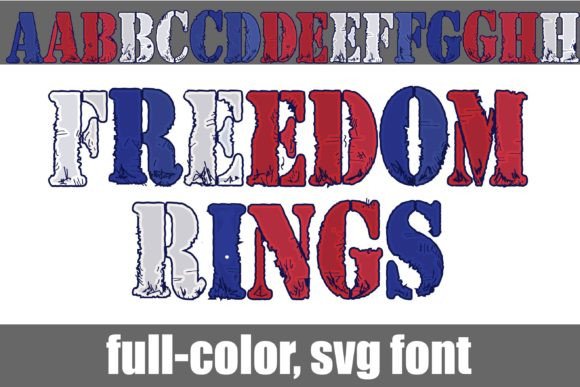
Freedom Rings Font: A Patriotic Grungy Stencil Style Font
Are you looking for a font that can add a touch of personality to your designs? Look no further than the Freedom Rings Font, a full-color font featuring a grungy stencil style in a patriotic color palette. This font is perfect for titles, displays, posters, and more, and is compatible with Silhouette Studio and other programs that support OpenType full-color (SVG) fonts.
What is Freedom Rings Font?
Freedom Rings Font is a unique and eye-catching font that features a grungy stencil style in a patriotic color palette. The font includes an alt case with additional colors that can be accessed through your system or Silhouette’s glyph map. This font is perfect for creating bold and colorful designs that stand out.
One of the best things about Freedom Rings Font is its versatility. It can be used for a variety of projects, from logos and branding to web design and print. The font is scalable, so you can use it for any size project, from small icons to large billboards.
Key Features of Freedom Rings Font
- Grungy Stencil Style: Freedom Rings Font features a unique grungy stencil style that adds a touch of edginess to your designs.
- Patriotic Color Palette: The font features a patriotic color palette that includes red, white, and blue, making it perfect for Independence Day or other patriotic-themed projects.
- Alt Case: The font includes an alt case with additional colors that can be accessed through your system or Silhouette’s glyph map.
Benefits of Using Full-Color SVG Fonts
Full-color SVG fonts, like Freedom Rings Font, offer a range of benefits, including:
- Versatility: Full-color SVG fonts can be used for a variety of projects, from logos and branding to web design and print.
- Scalability: SVG fonts are vector-based, so they can be scaled to any size without losing quality.
- High Quality: Full-color SVG fonts are high-quality and will not lose their resolution when scaled.
Uses for Freedom Rings Font
Freedom Rings Font is perfect for a variety of projects, including:
- Logos and Branding: Use Freedom Rings Font to create bold and colorful logos and branding materials.
- Posters and Flyers: Create eye-catching posters and flyers with Freedom Rings Font.
- Web Design: Use Freedom Rings Font to add a touch of personality to your website.
- Social Media Graphics: Create colorful social media graphics with Freedom Rings Font.
Tips for Using Freedom Rings Font
Here are a few tips for using Freedom Rings Font:
- Experiment with Colors: Don’t be afraid to experiment with different colors and combinations.
- Use it for Titles and Headlines: Freedom Rings Font is perfect for titles and headlines, so use it to add a touch of personality to your designs.
- Mix and Match: Mix and match Freedom Rings Font with other fonts to create unique and interesting designs.
Freedom Rings Font is a unique and eye-catching font that can add a touch of personality to your designs. With its grungy stencil style and patriotic color palette, it’s perfect for titles, displays, posters, and more. And with its compatibility with Silhouette Studio and other programs that support OpenType full-color (SVG) fonts, it’s easy to use and install.